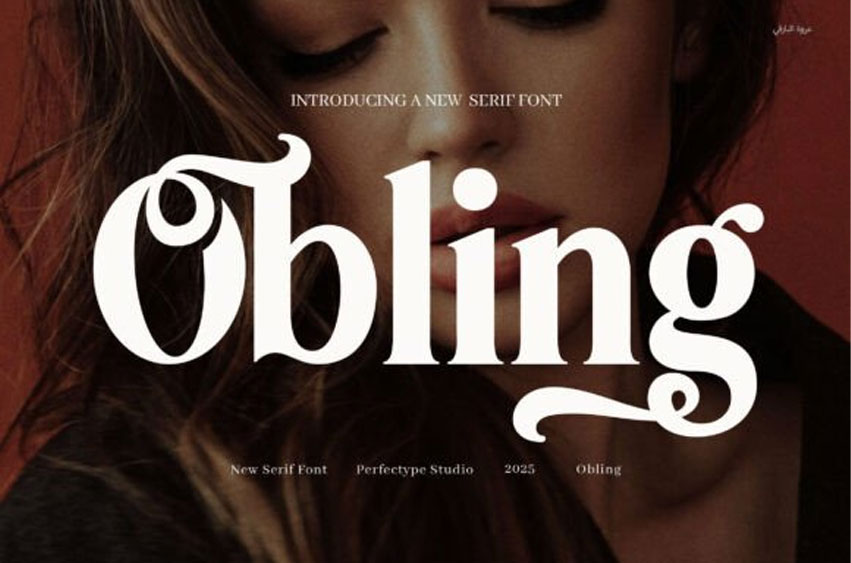
Obling Font
Obling Font is a sophisticated and contemporary serif typeface designed to bring a refined, stylish edge to any creative project. Featuring graceful ligatures and artistic alternate forms, Obling offers a rich typographic experience that feels both timeless and modern, perfect for making your designs stand out with confidence and class.
Every letter in Obling is meticulously crafted, combining classic serif elegance with modern design sensibilities. The font’s distinctive ligatures add a sense of flow and personality, while the alternates provide flexibility to create custom-looking typography without the need for complex design work. Whether used for bold headlines or delicate branding, Obling commands attention with its sculpted form and effortless grace.